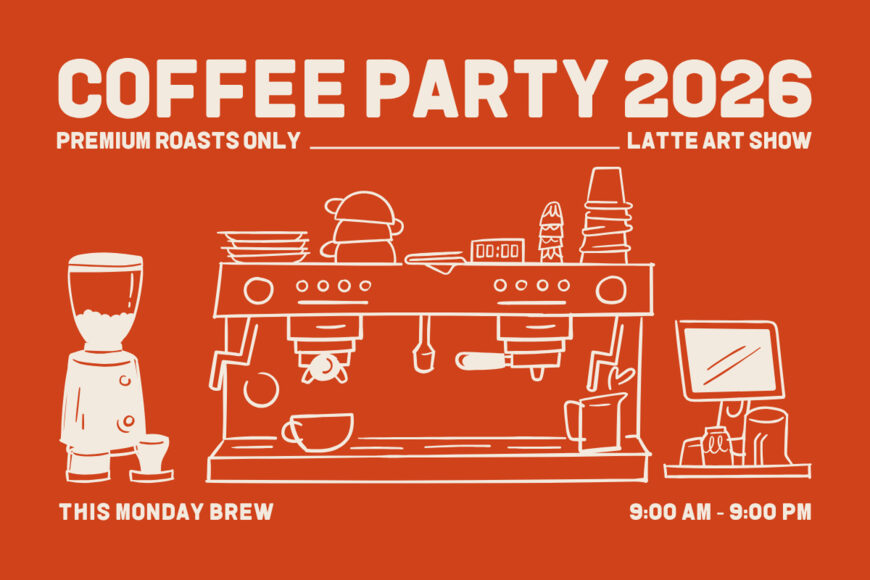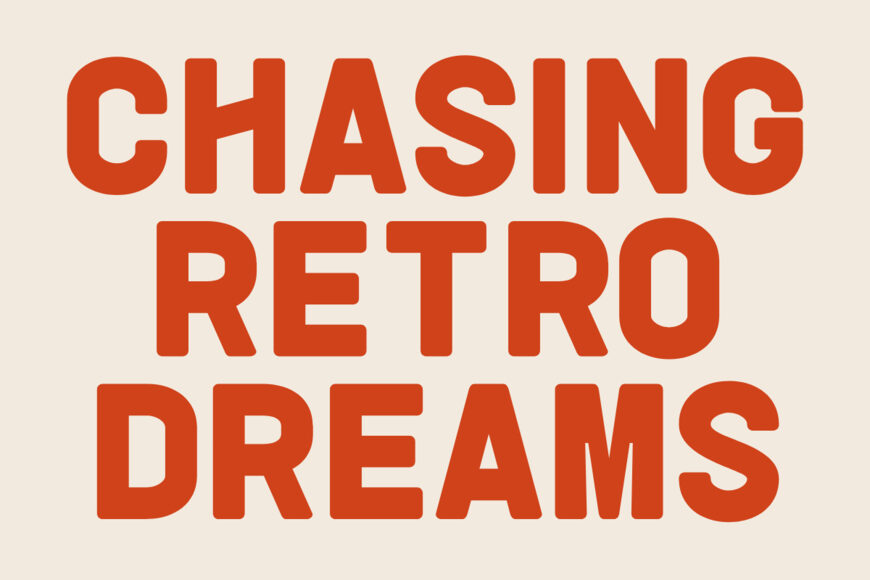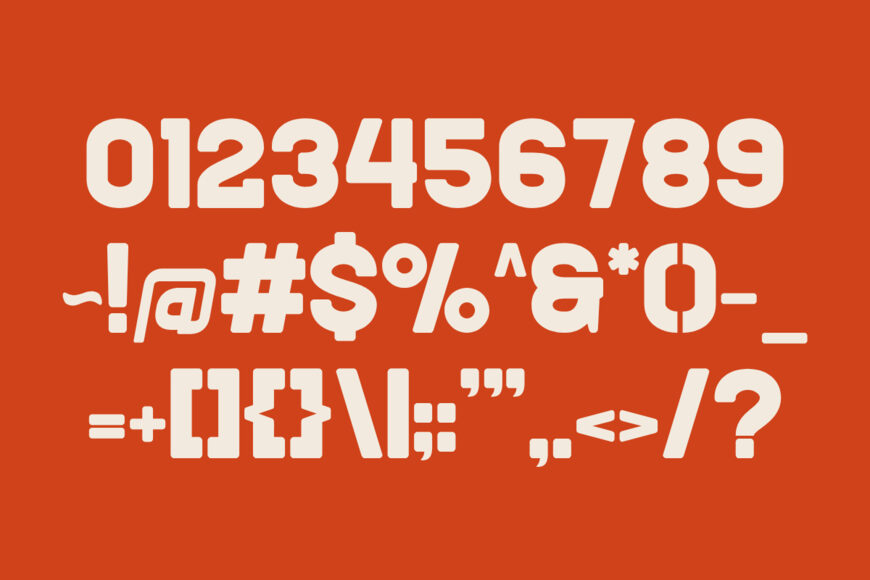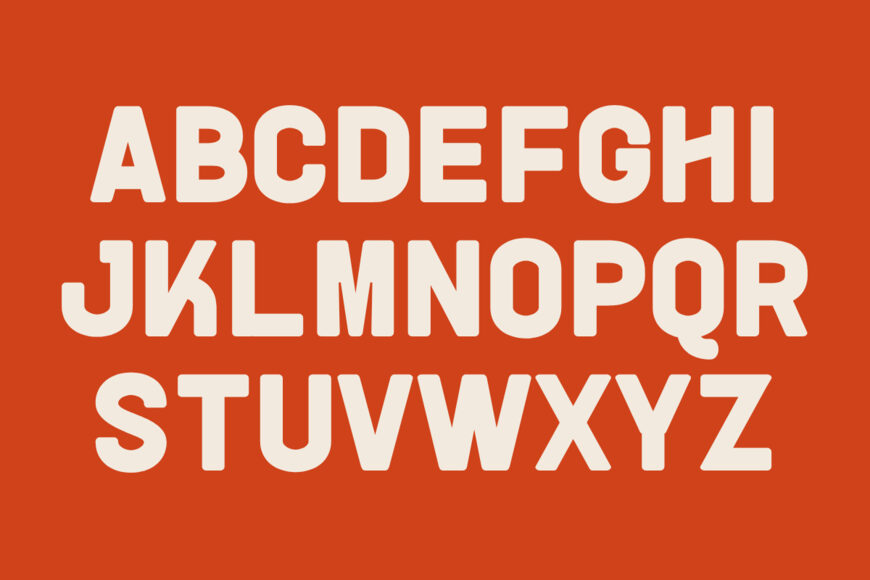
Monday Brew is a bold retro sans serif designed to make headlines stand out with warm, nostalgic character. Its extra-heavy weight, sturdy block forms, and gently rounded edges combine vintage café appeal with a polished, contemporary feel. Ideal for streetwear, food and lifestyle branding, print-on-demand products, and other commercial projects, it offers excellent readability and strong visual impact.